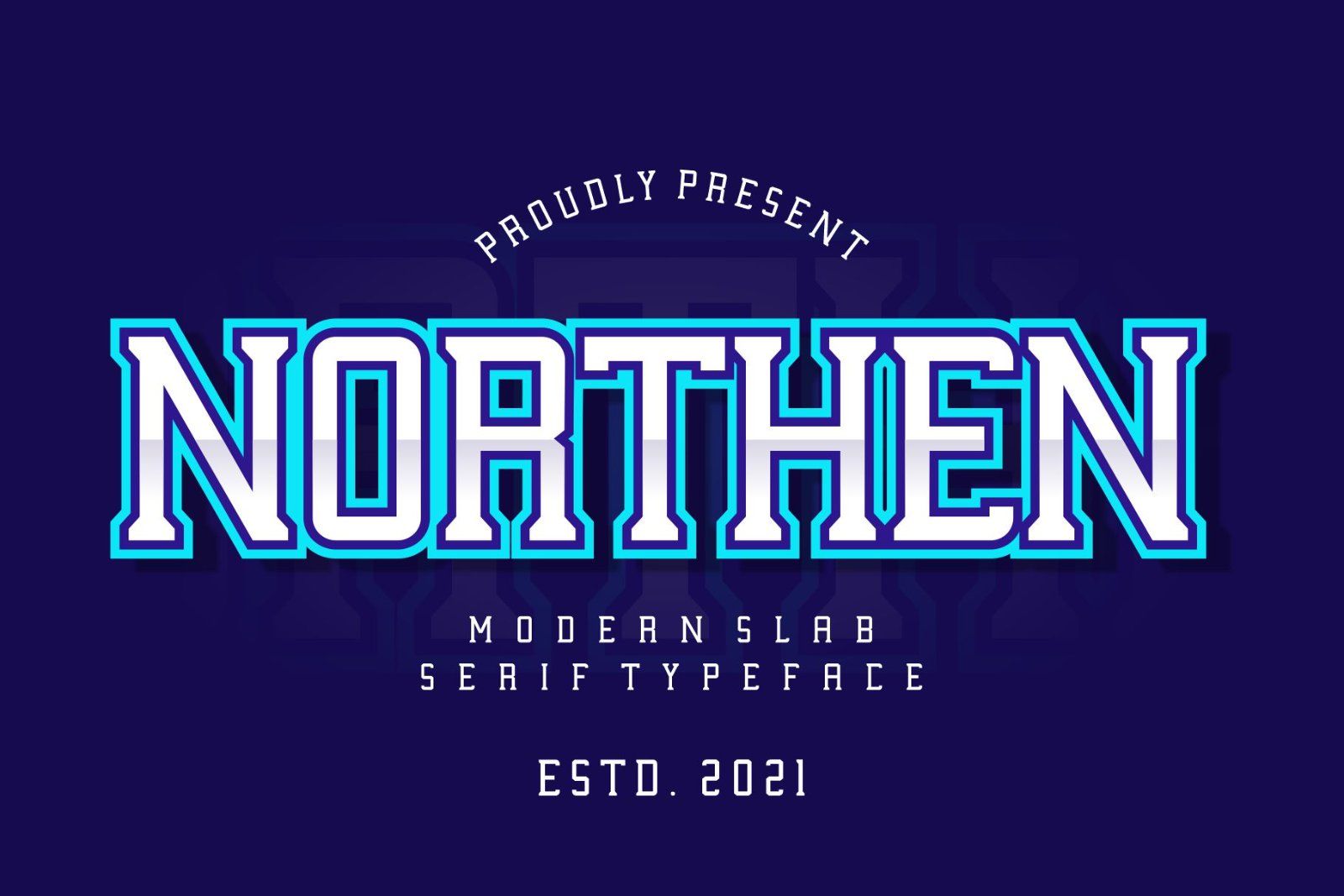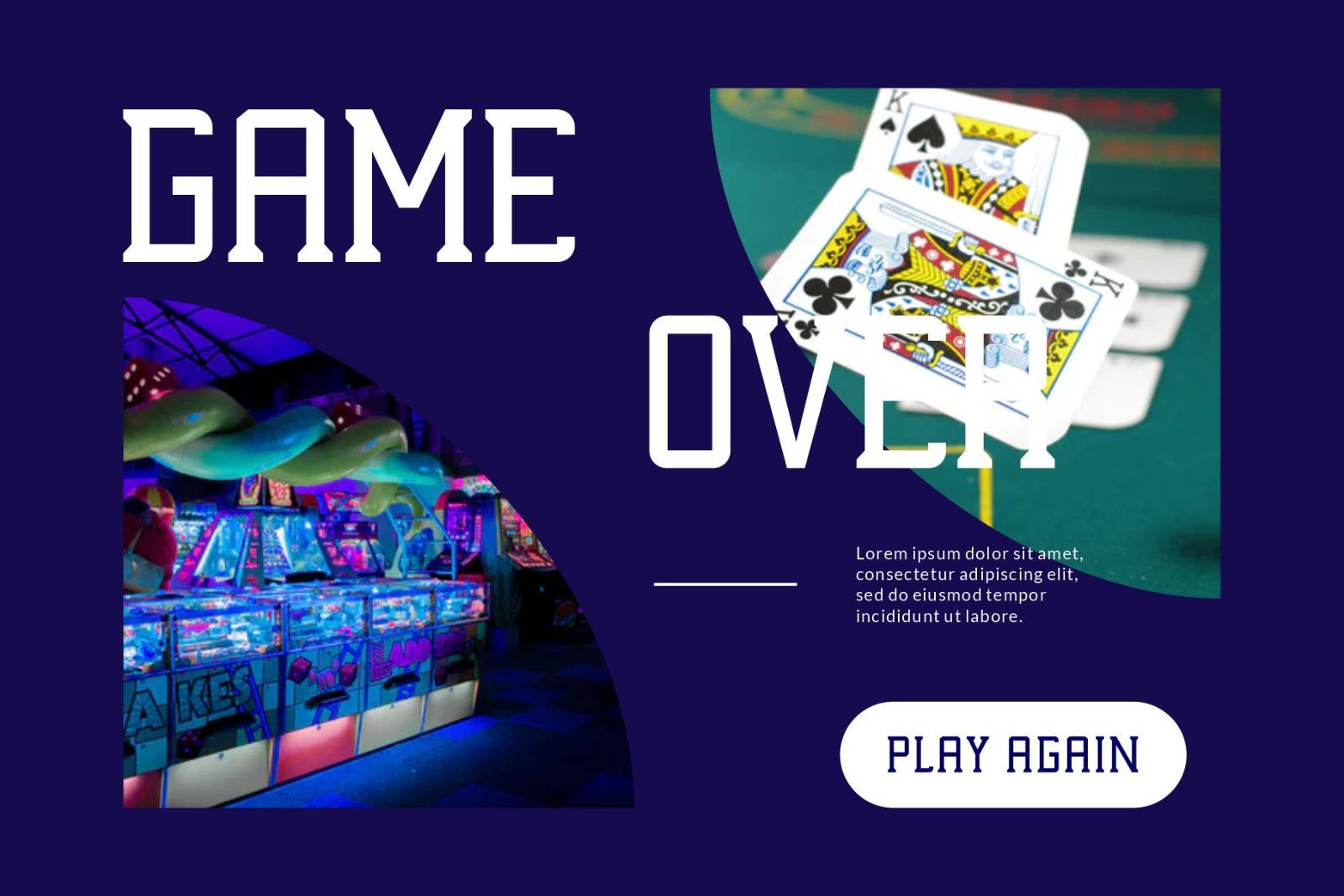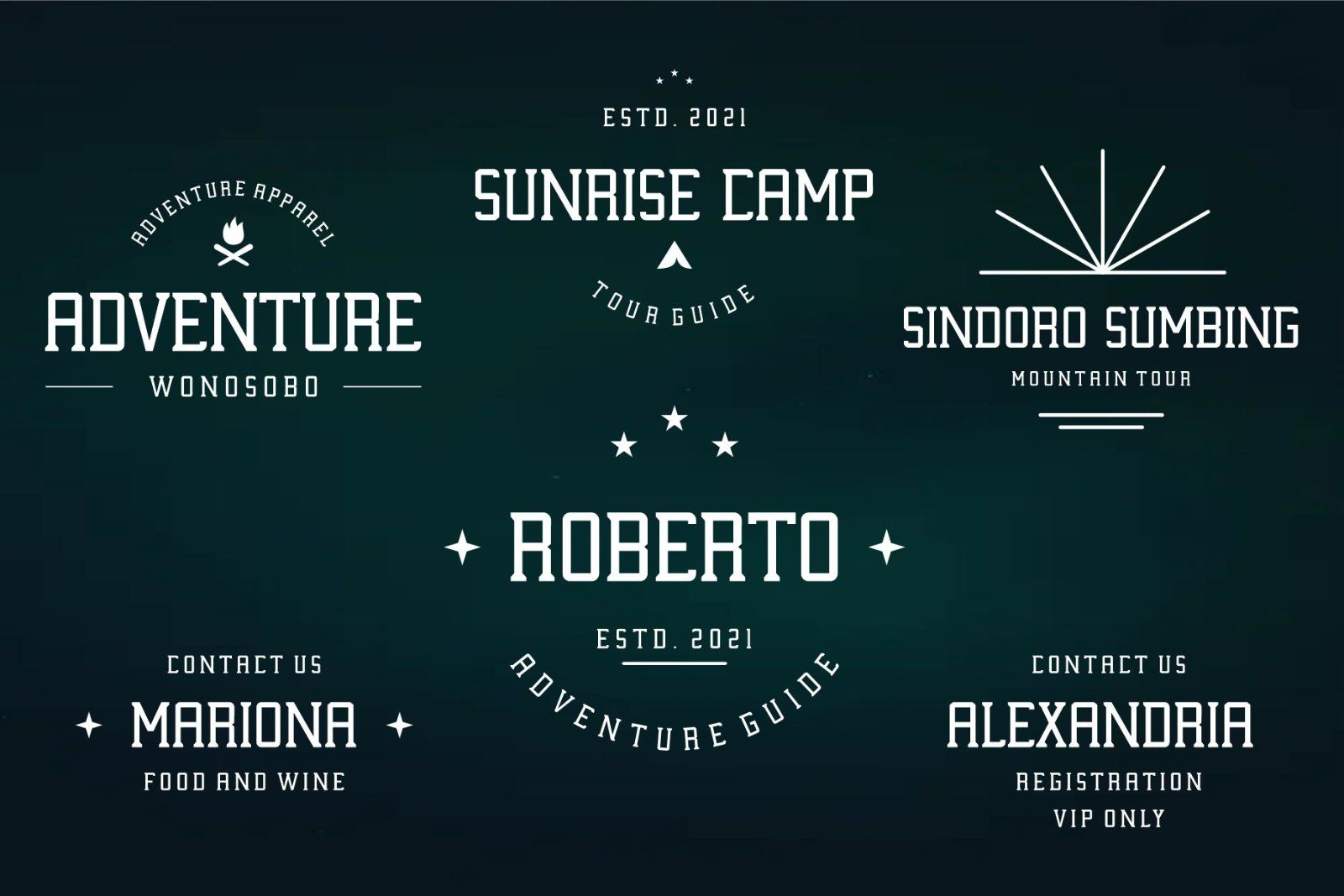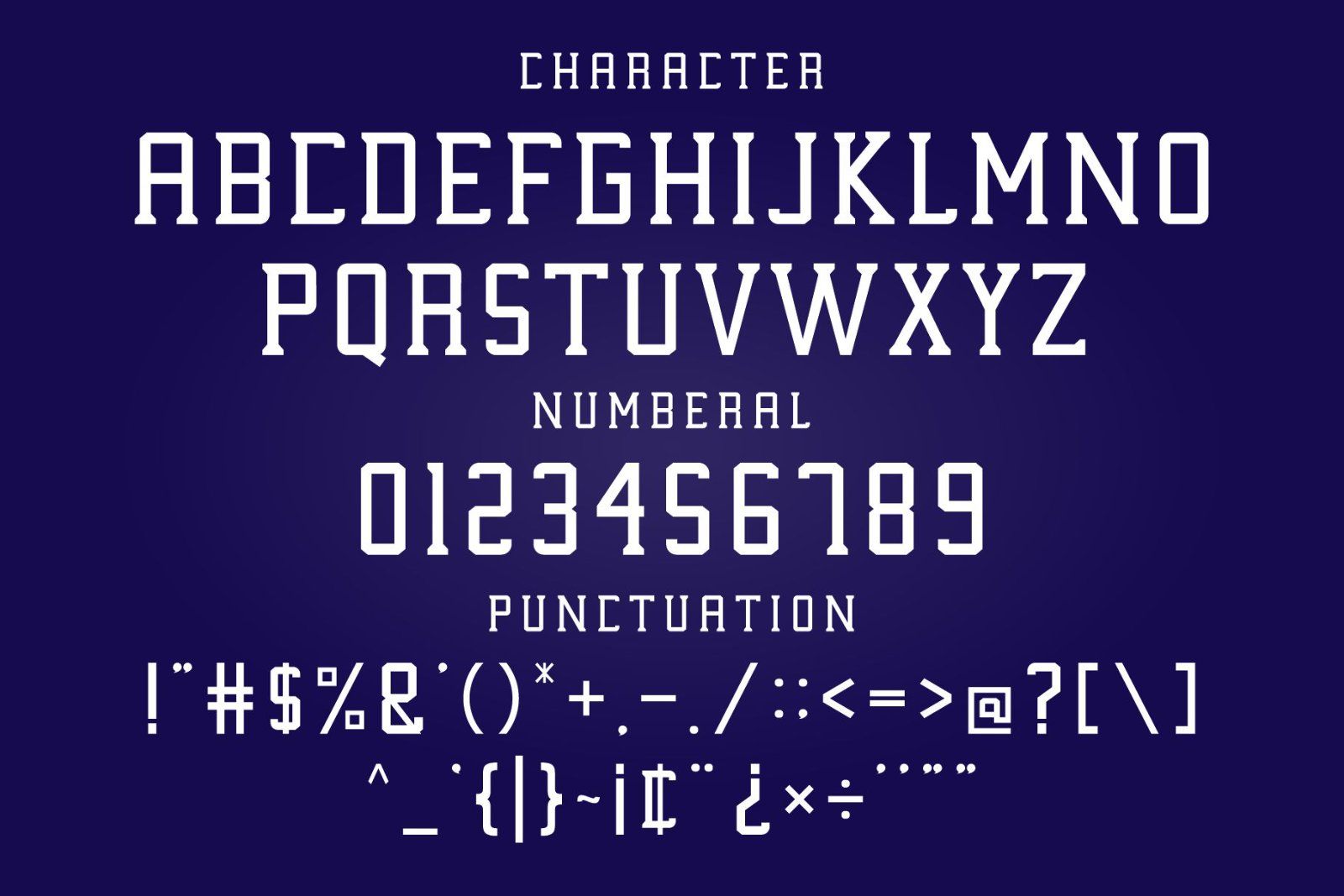
MarketplaceFontsNORTHEN SLAB SERIF TYPEFACE
NORTHEN is a Slab Serif font handwriting style improvisation on uppercase mode, although these fonts are all uppercase fonts. This font is perfect for something related to food, children, kids illustrations, book titles, website title, writing on video, game, or anything you can try to gain experience in graphic design needs.